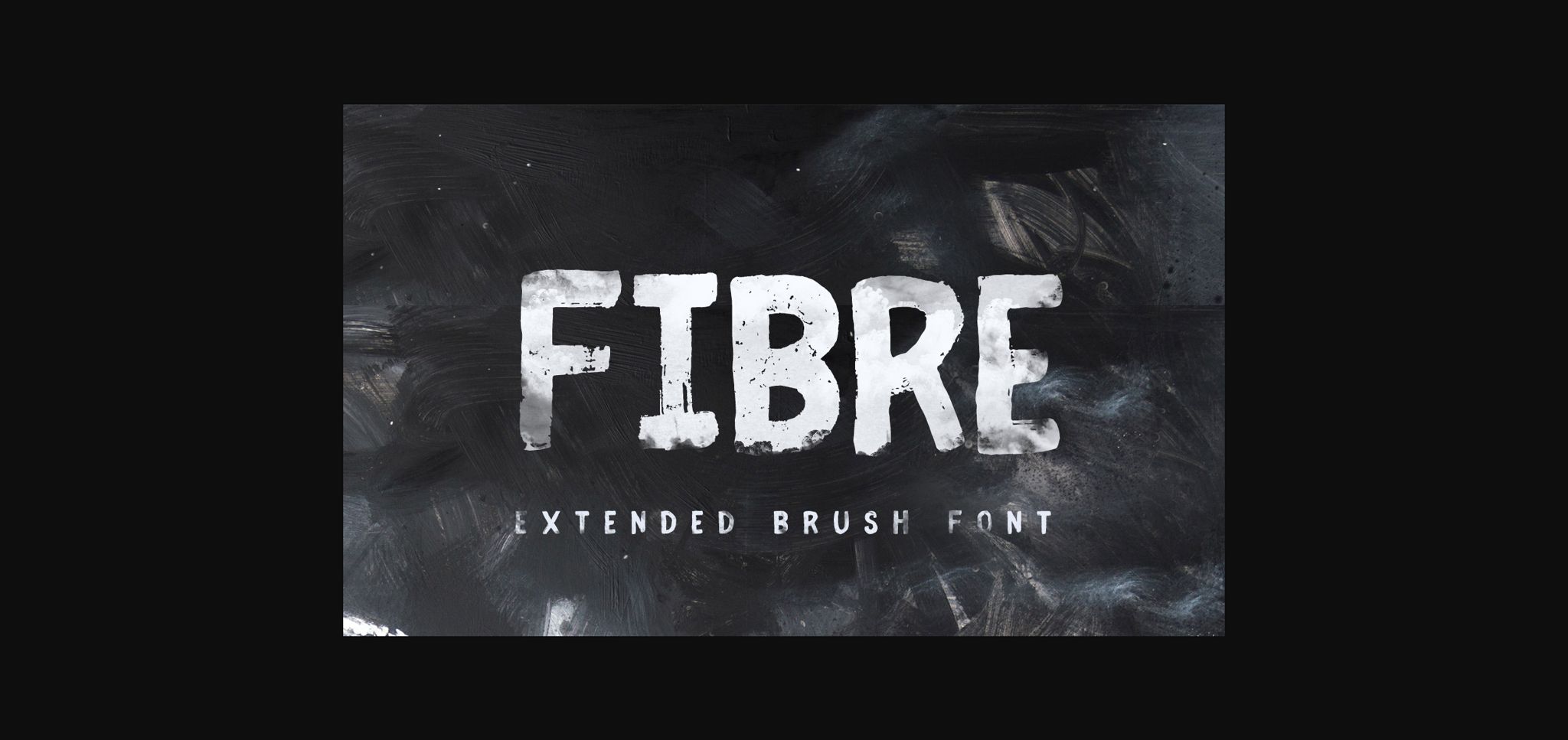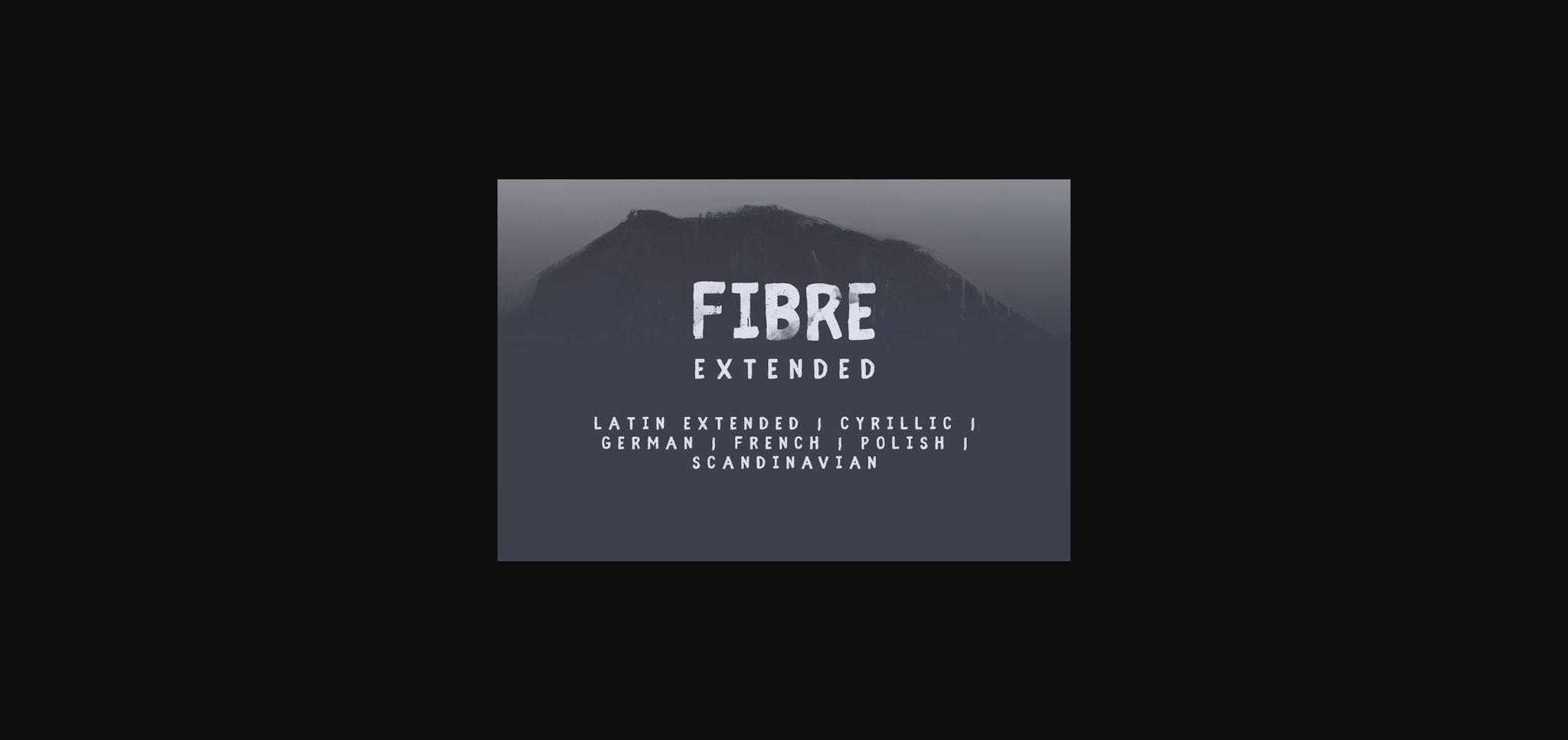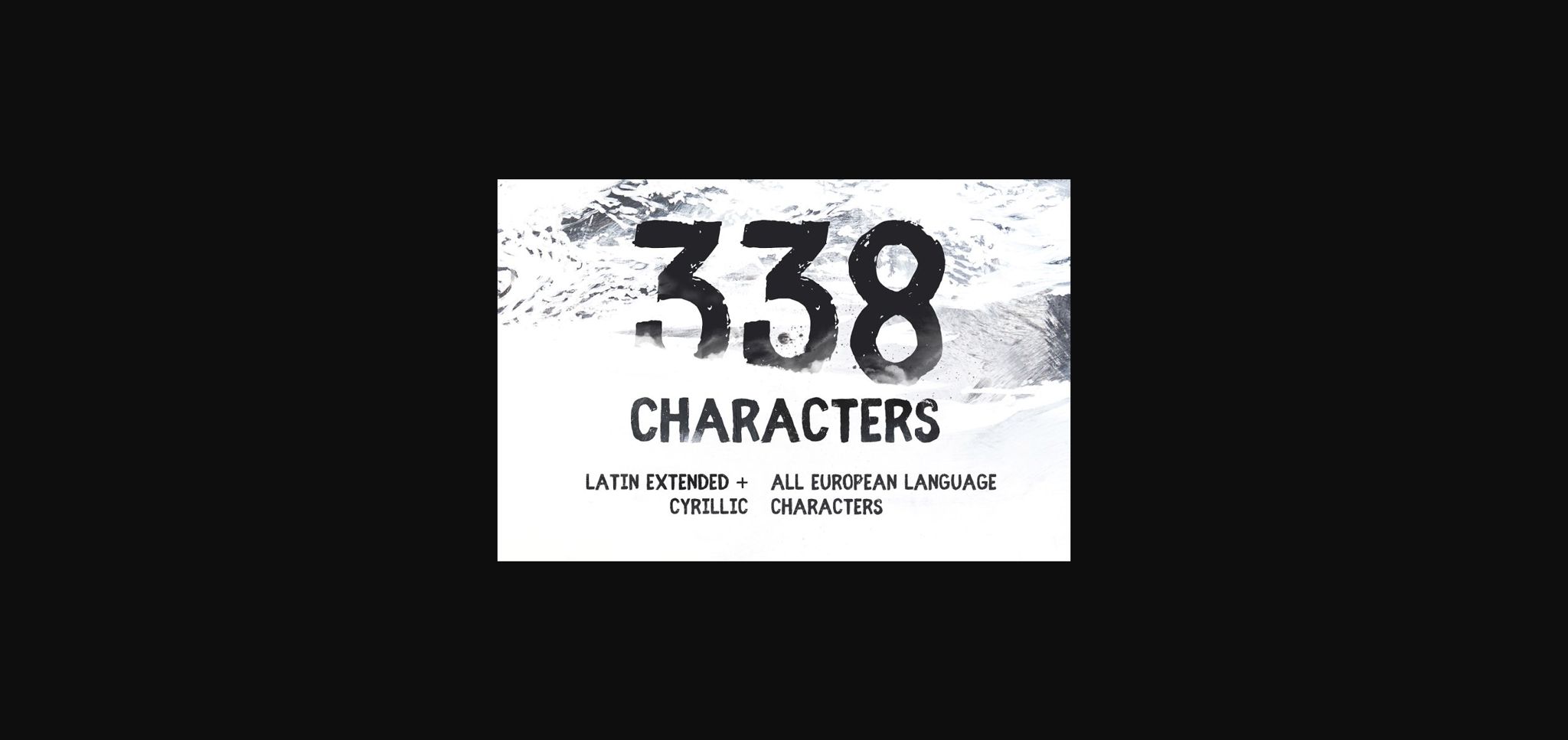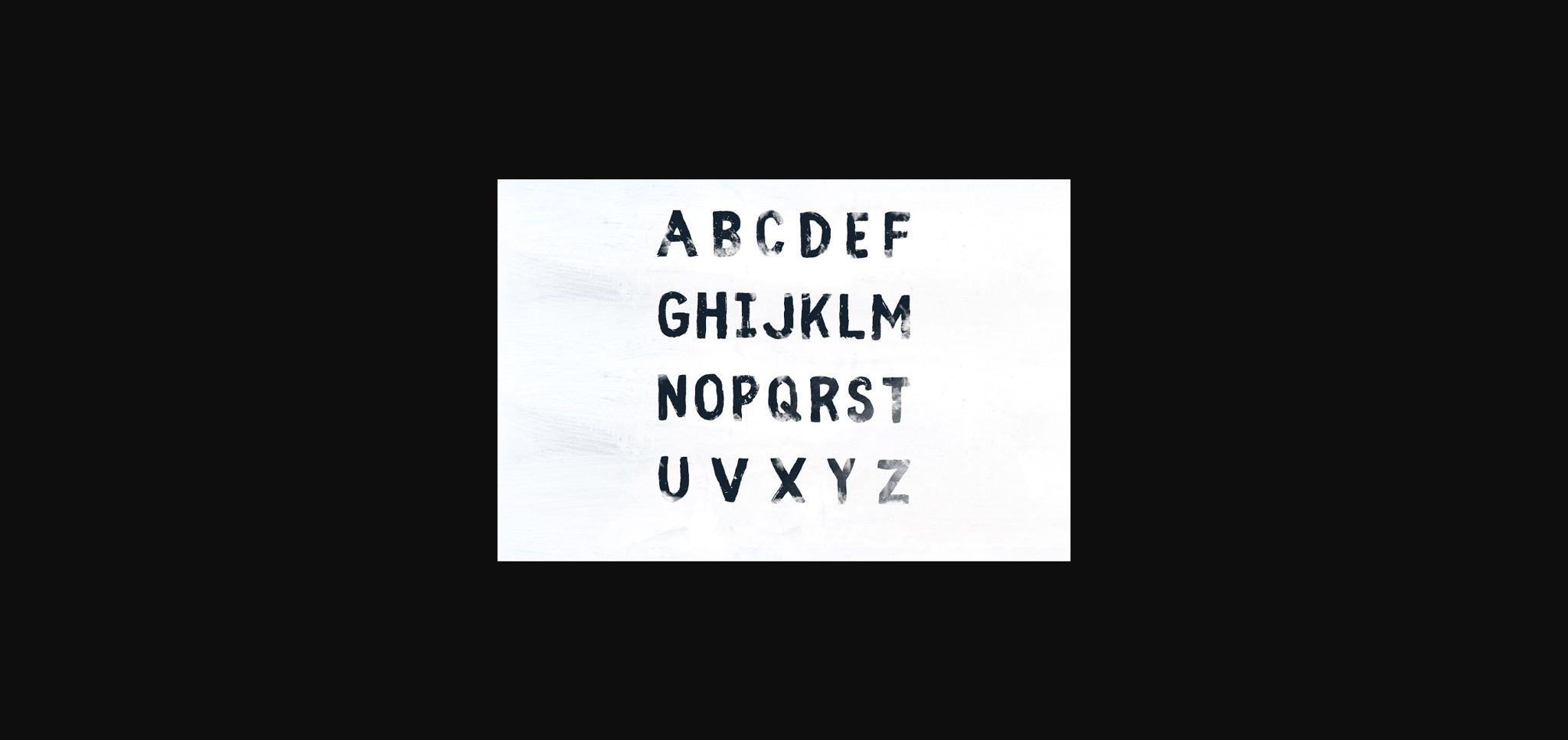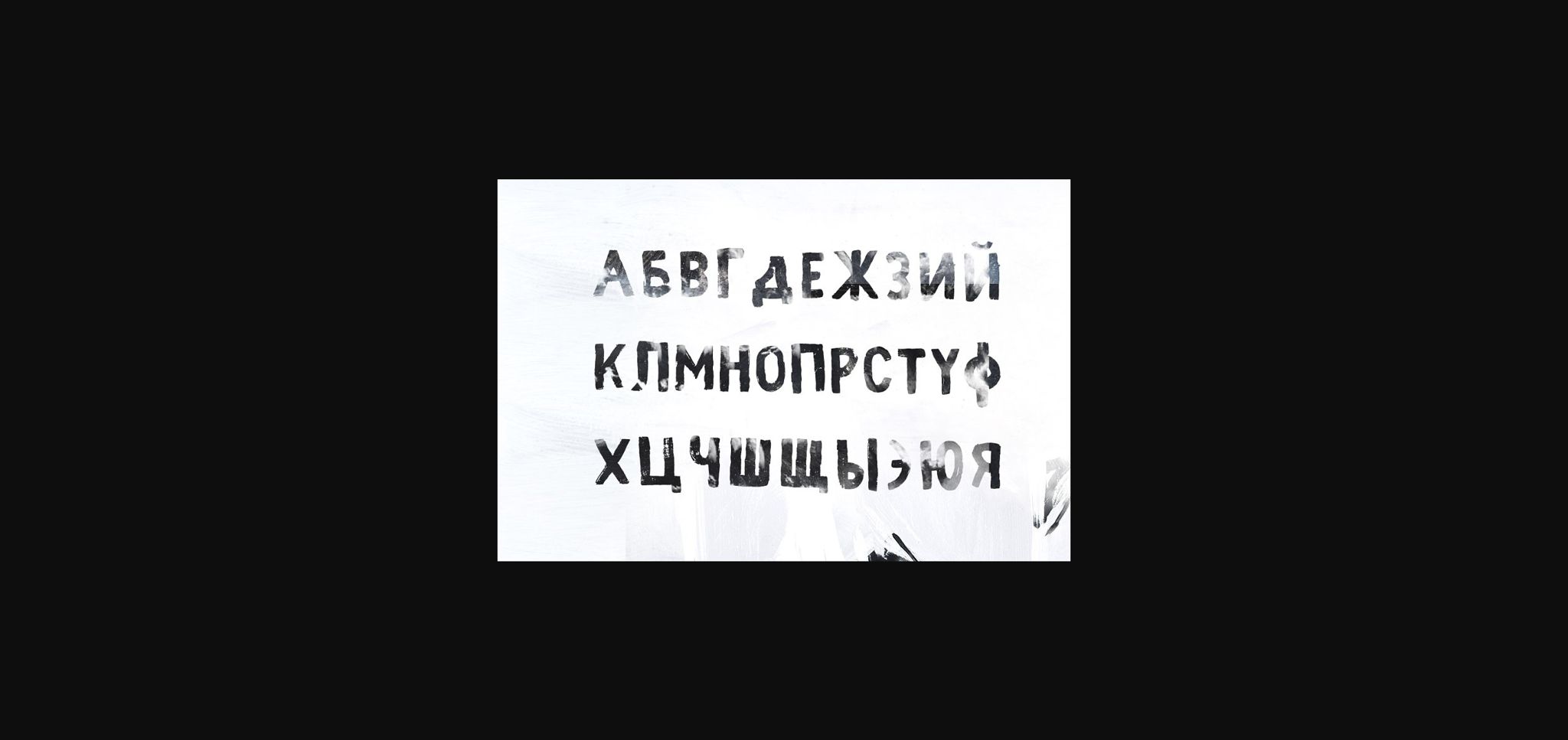
About Fibre Extended Font
Fibre extended is a casual, fun sans seif font, created by using a brush pen. Clean and a little bit quirky, this font is the perfect fit for all of your logos, branding, social media, and crafty DIY projects.